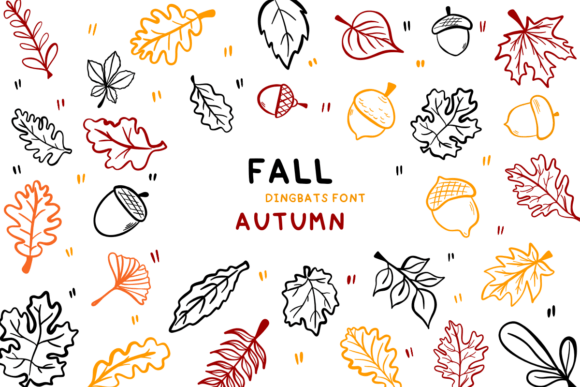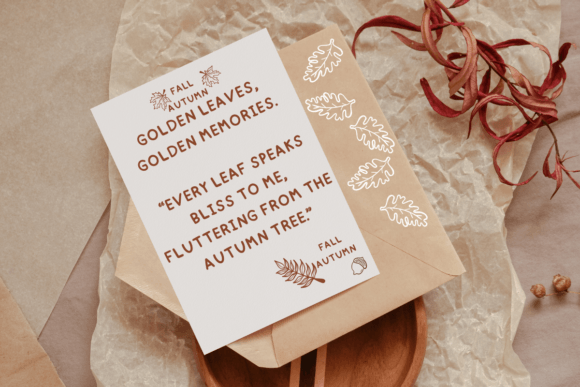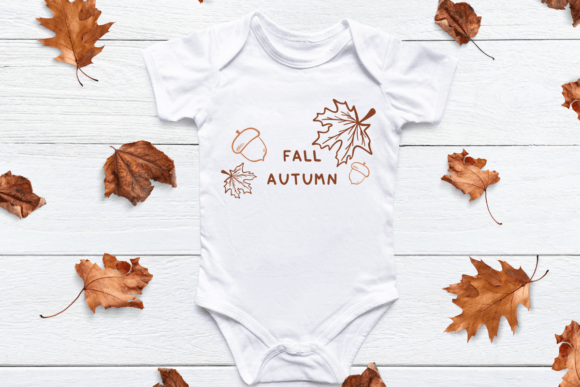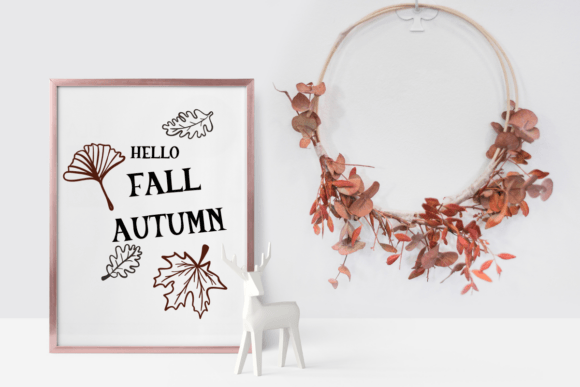
Fall Autumn Font
About the Fall Autumn Font
Welcome to the world of Fall Autumn Font, a typeface that will inspire your next great project. Fall Autumn is a dingbats font with a nature theme. This font can enhance your creative projects such as wedding invitations, DIY, crafts, decorations, logos, and many other creative ideas.
Fall Autumn’s playful, organic forms are ideal for projects requiring a touch of rustic charm. It excels in branding for small businesses with a handcrafted aesthetic, particularly those in food, beverage, or nature-related industries. Use it effectively in logos, short headlines, and packaging design elements. However, avoid using it for body text or UI elements due to its limited character set and low readability in extended passages.
Pairing Fall Autumn with a clean sans-serif like Open Sans for body copy provides excellent contrast and readability. For a more sophisticated feel, consider pairing it with a classic serif font such as Garamond or a delicate script like Great Vibes for added elegance in invitations or branding applications. The combination will balance the font’s whimsical nature with a touch of refinement.
The overall personality of Fall Autumn is cheerful and approachable, conveying a sense of warmth and handcrafted authenticity. Its decorative style is best suited for projects that evoke feelings of nostalgia or celebrate the beauty of natural elements.